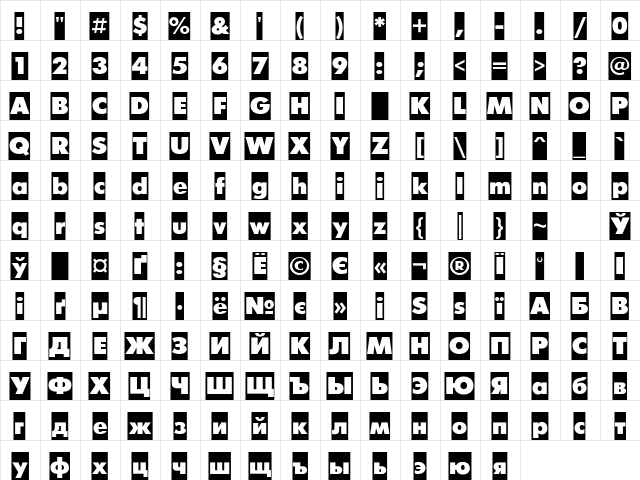
FuturisCameoC Regular
Design Context for FuturisCameoC Typeface
FuturisCameoC channels digital-age aesthetics through its sharp, structured letterforms — ideal for brands that want to signal innovation.
Pro Tip: Try FuturisCameoC with generous letter-spacing in UI labels and navigation — the geometric forms benefit from room to breathe.